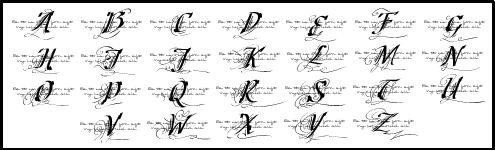
Third set of letters inspired from Rule of Rose. Feel free to use/modify them as you like.
Letters with a red dot on the side are from the original game.
Letters with a blue dot on the side have been drawn by tumblr user cinnamelodic (published with their permission), original drawing here
Other letters are from me.